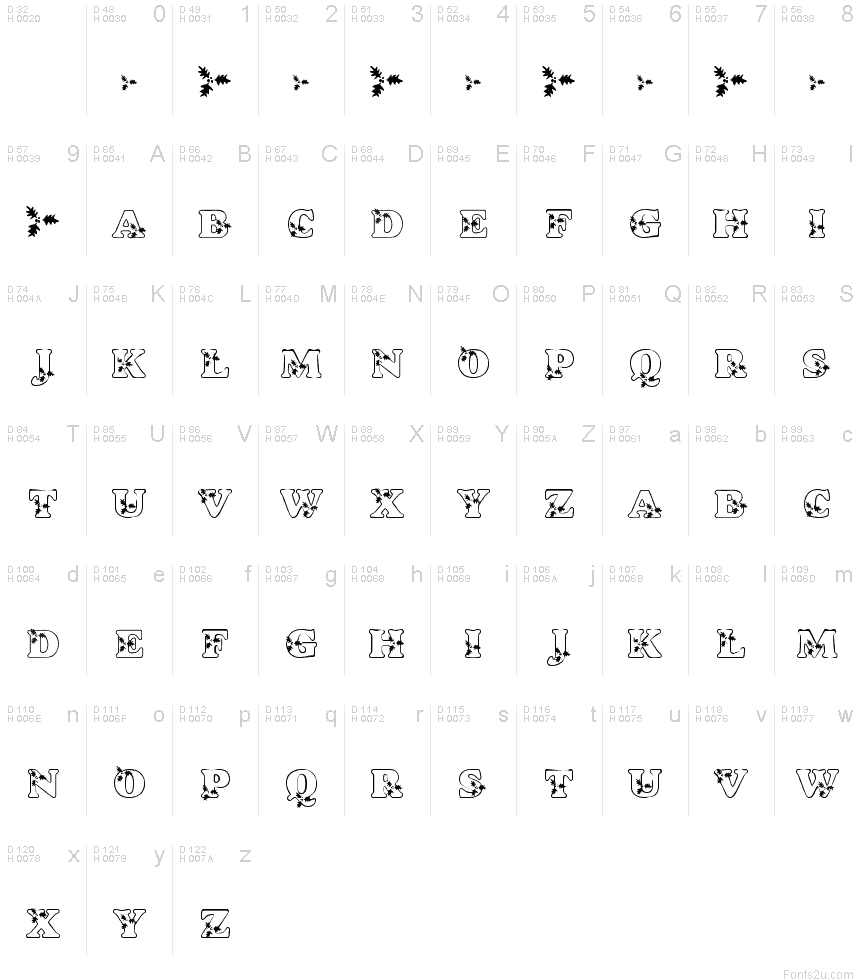
KR Holly by Kat of katsfunfonts.com is a free outlined Western display font with broad slab serifs and softly swollen letterforms. Small holly-like leaf clusters interrupt the contours, turning the alphabet into a lively seasonal ornament. The open interiors and uneven, hand-drawn edges keep the sturdy shapes from looking too formal.
Holiday posters are its clearest and most convincing setting. The same treatment suits gift packaging, event signage, and children's party graphics, where the lettering can double as an illustrated emblem rather than ordinary display type during the winter season.